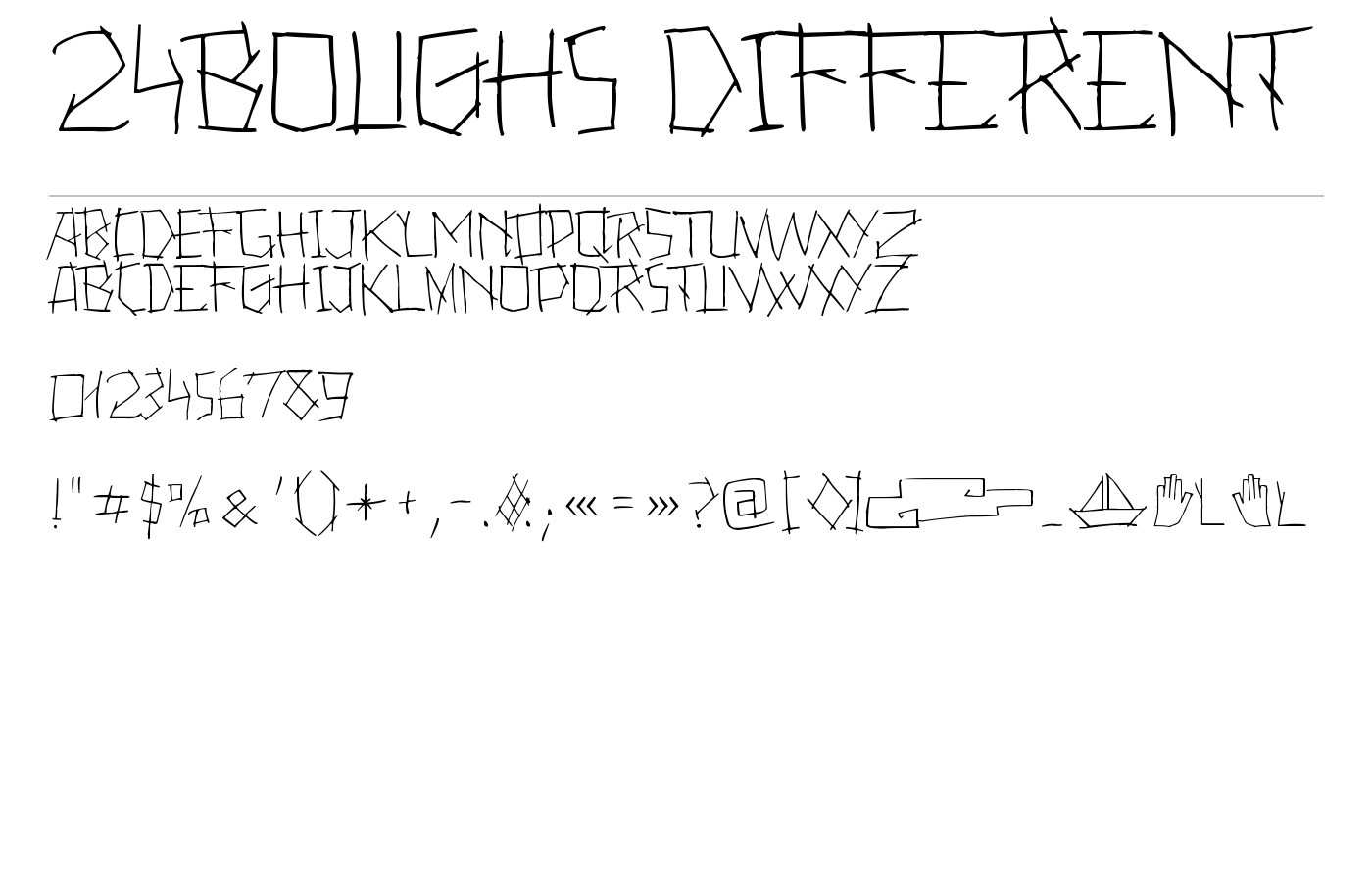
24boughs Different Regular is a unique, hand-drawn sans serif font characterized by its thin, irregular strokes resembling intertwined branches or twigs. Its irregular, organic letterforms create a whimsical and artistic feel, making it ideal for creative projects, handmade or nature-inspired branding, and expressive headlines where a distinctive, casual style is desired. This font best suits designs that aim to stand out with a quirky, playful personality rather than clean, formal text.